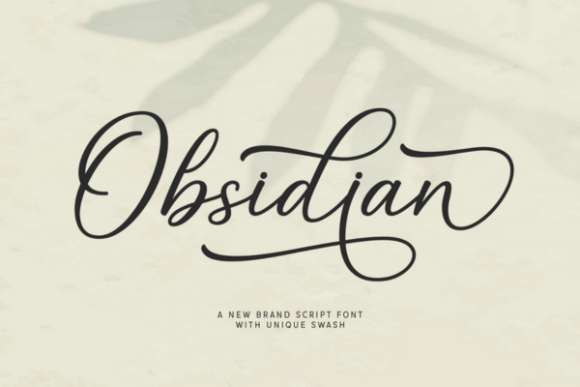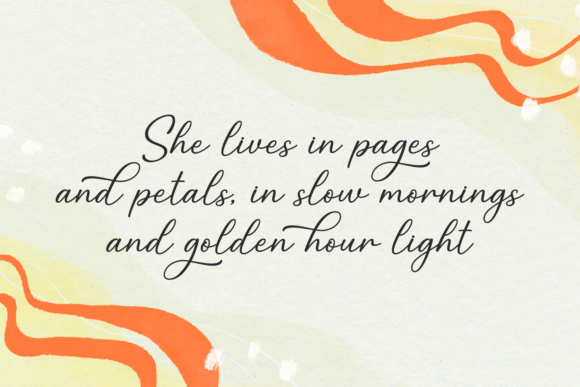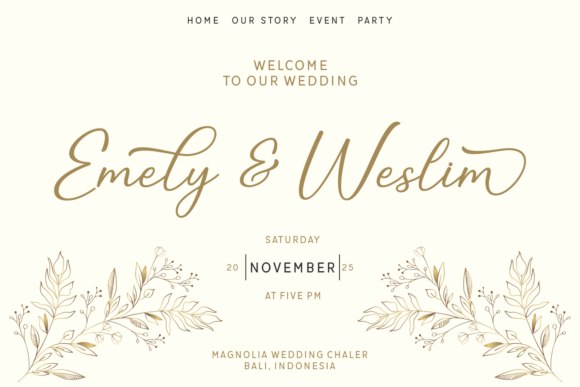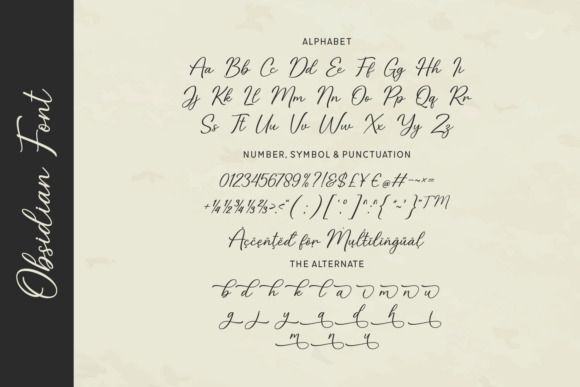
Obsidian Font
About the Obsidian Font
The wait is over! The incredible Obsidian Font is now available for your design toolkit. Obsidian is a luxurious brand script font that combines modern sophistication with timeless swashes. Its elegant loops, precise strokes, and refined flow make it perfect for high-end branding, fashion editorials, beauty logos, and upscale packaging. Obsidian is designed to elevate your message with poise and grace.
Obsidian’s elegant, yet slightly dramatic strokes lend themselves best to headlines, short-form text in logos and marketing materials, and high-impact packaging design. It excels in situations requiring a touch of luxury and sophistication. Avoid using Obsidian for body text or lengthy paragraphs; its ornate nature hinders readability in larger blocks of text. It also doesn’t translate well to digital interfaces, especially small screen sizes.
Consider pairing Obsidian with a clean sans-serif like Montserrat for a contemporary contrast, or a classic serif such as Garamond for a more traditional feel. For a touch of playful modernity, a geometric sans-serif like Futura could also work well. These pairings provide visual balance, allowing Obsidian’s luxurious personality to shine without overwhelming the overall design.
Obsidian’s overall personality is sophisticated and elegant, with a touch of drama. It is best suited to brands aiming for a high-end, luxurious, and memorable image, such as jewelry, cosmetics, high fashion, or premium spirits.
Obsidian Font Usage Examples
Obsidian Font Example